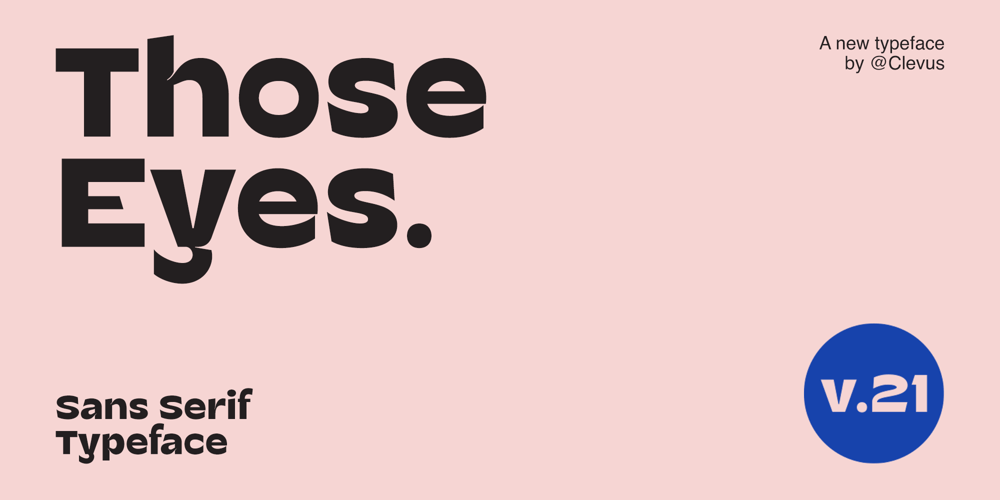
Those Eyes Font Family was designed by Alfinu Zafir and published by Clevus. Those Eyes contains 1 styles and family package options. Proudly present Those Eyes Chunky Sans serif typefacea chunky, funky, loud, and cutely proud kinda font. Those Eyes is playful, and bold while not being shouty with its soft corner. It’s the kinda font that looks like you wanna give it a big hug.Get Those Eyes font now and let your designs shine!Have a Good Day !